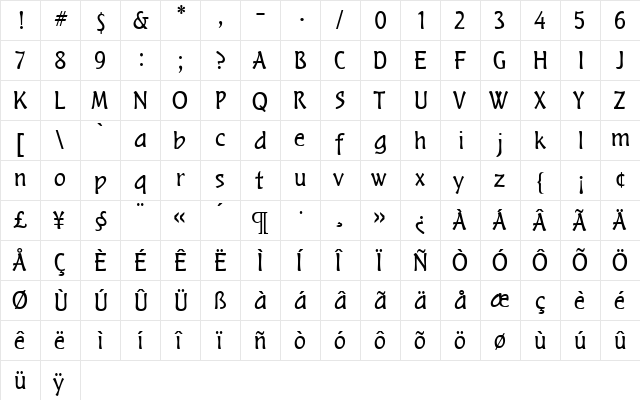
Arturis UT Light Regular
Design Context for Arturis UT Light Typeface
Arturis UT Light offers clean, dependable letterforms without strong stylistic allegiance, making it a practical choice for designers who need flexibility. The delicate stroke weight brings airiness and refinement to layouts.